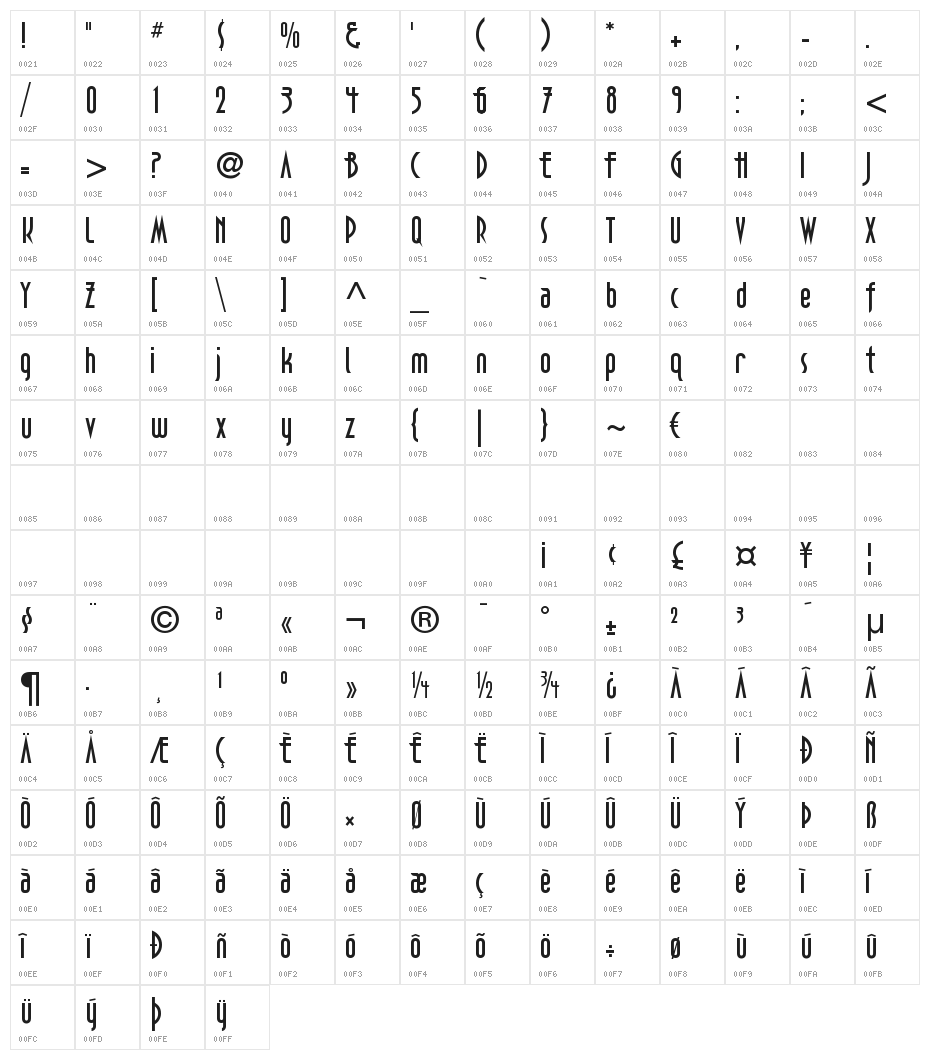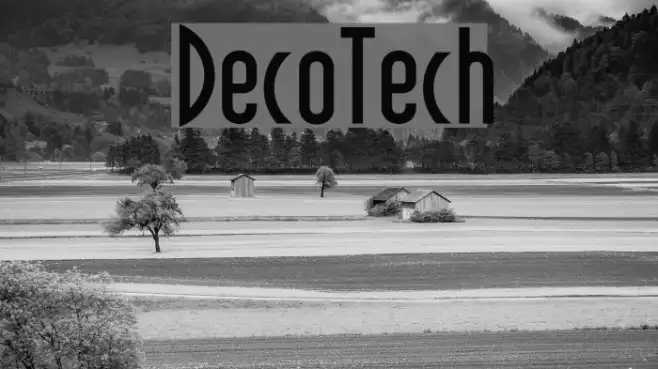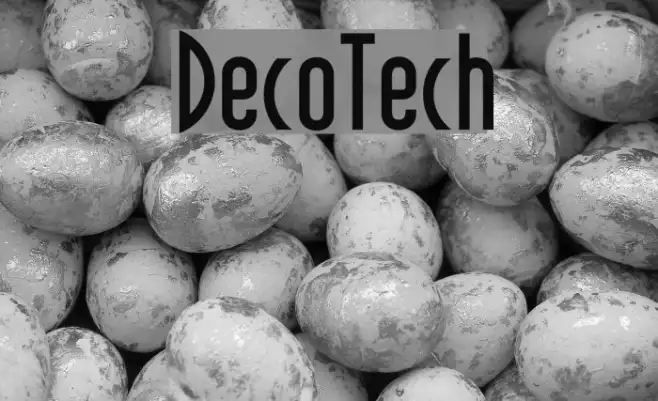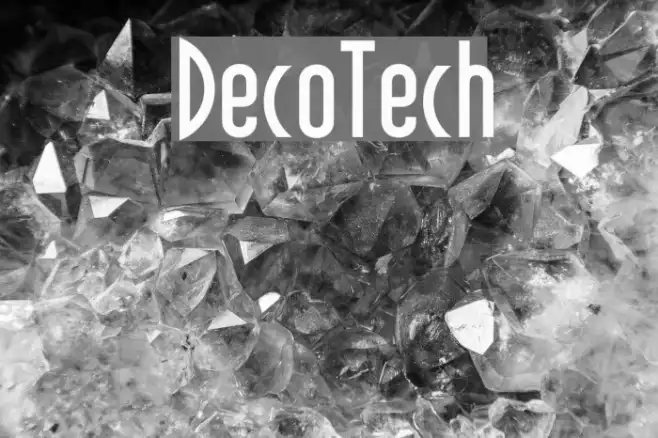
DecoTech Font
DecoTech Description
This font features a distinct Art Deco style, characterized by its geometric shapes and sharp angles. The uppercase letters are tall and narrow, with a unique blend of straight lines and curves that create a sophisticated and elegant appearance. The lowercase letters maintain a similar aesthetic, offering a cohesive look across different text sizes. The numerals are stylized to match the overall design, ensuring consistency throughout. Special characters are thoughtfully integrated, enhancing the font's versatility. This font's bold presence makes it ideal for attention-grabbing designs.
| Proposed Projects | Ideal for vintage-themed posters, luxury branding, and editorial headlines. |